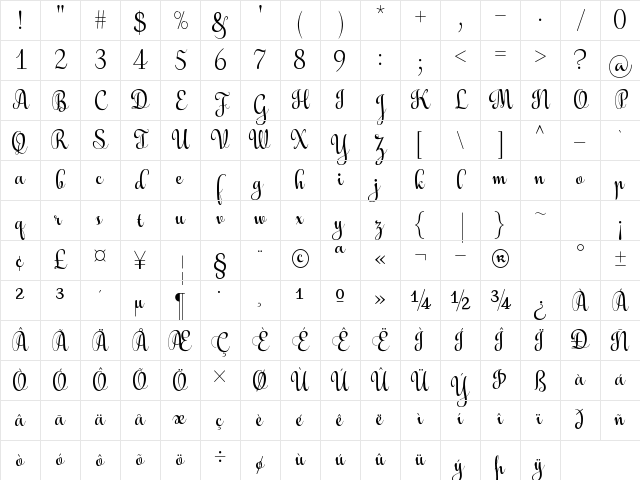
Aulyars Regular
Foundry: Situjuh Nazara
Designer: Situjuh Nazara
Aulyars Family
Design Context for Aulyars
Aulyars is a composed and adaptable typeface that performs quietly and consistently across a wide range of design contexts.